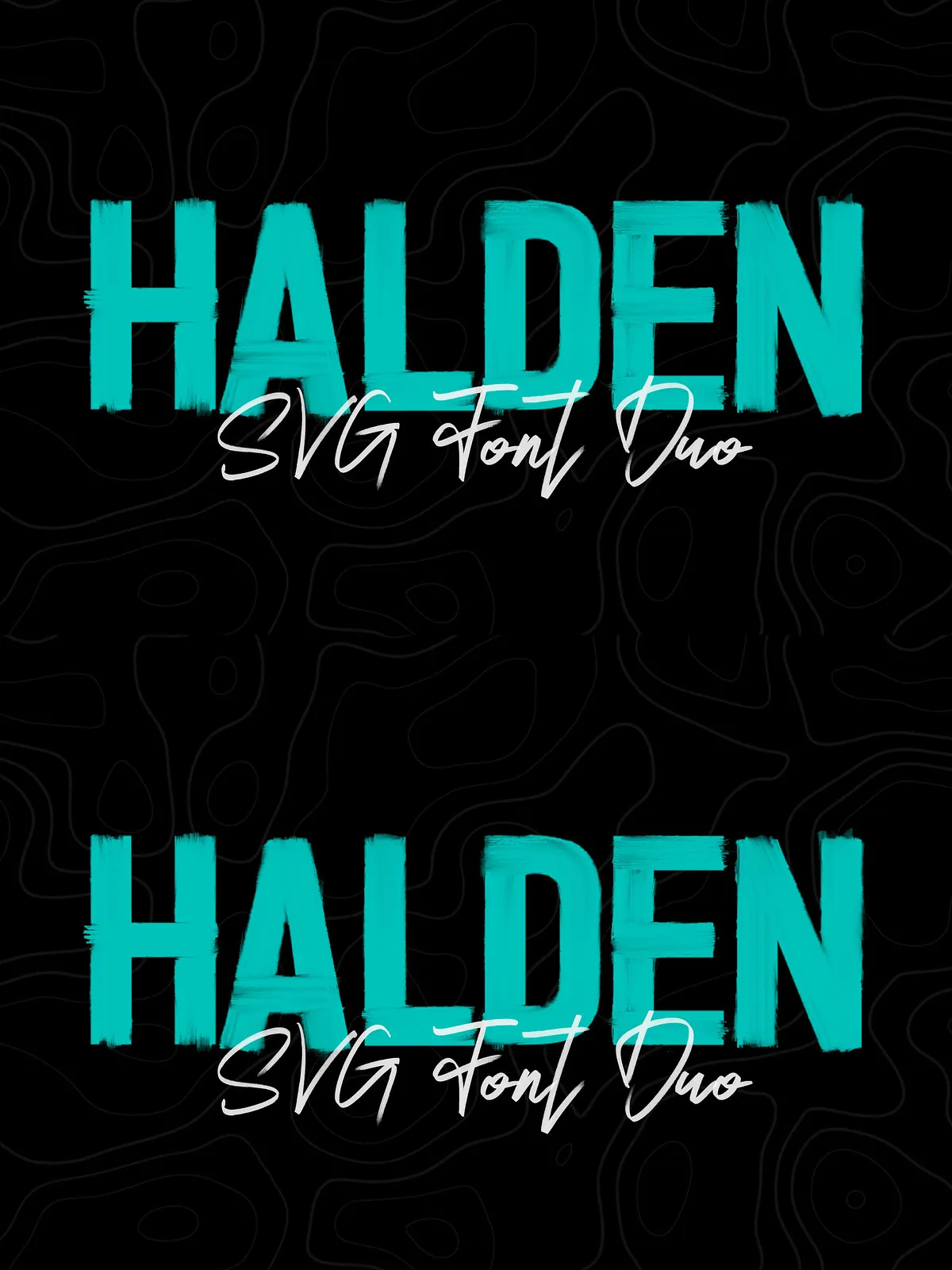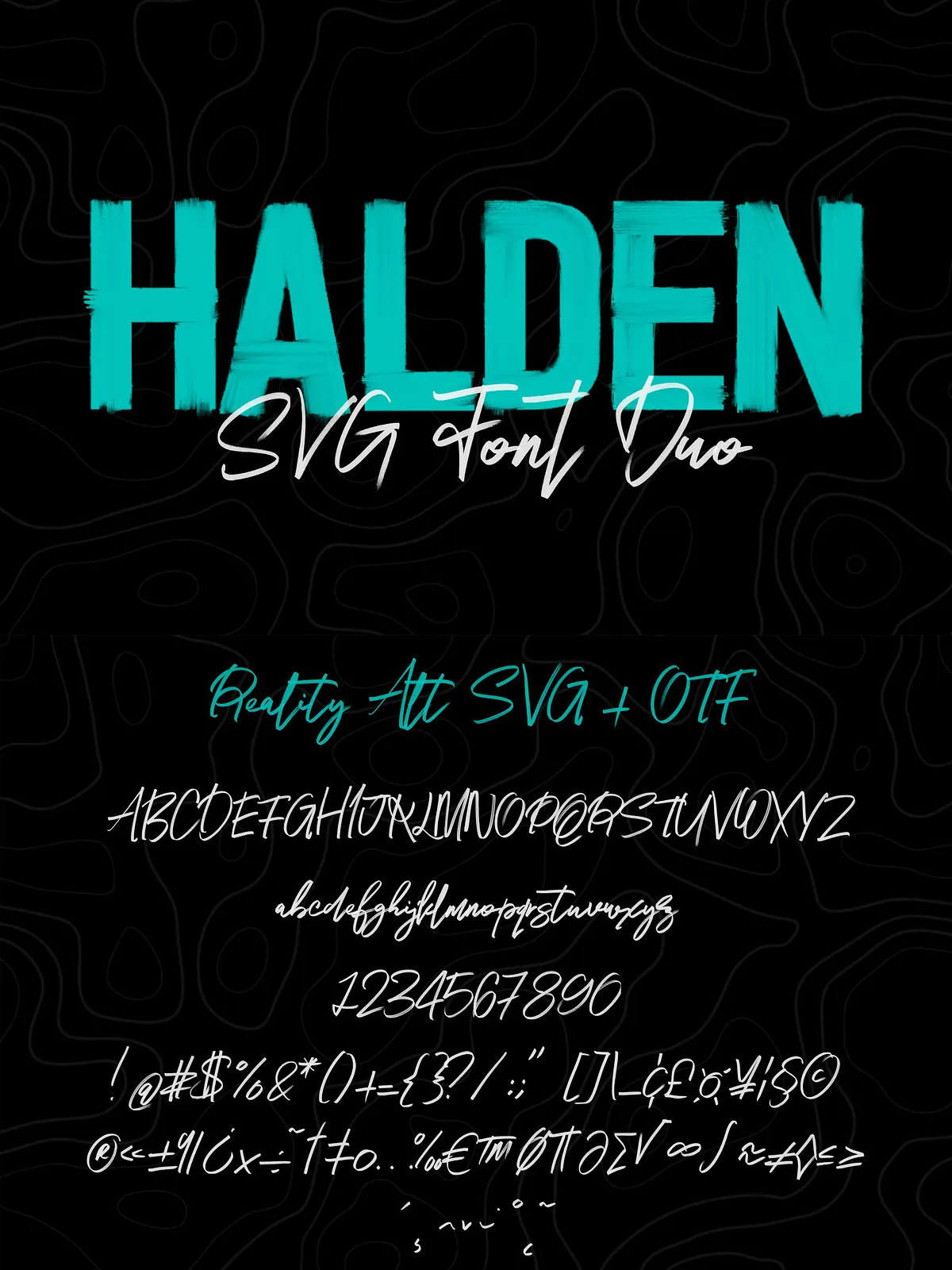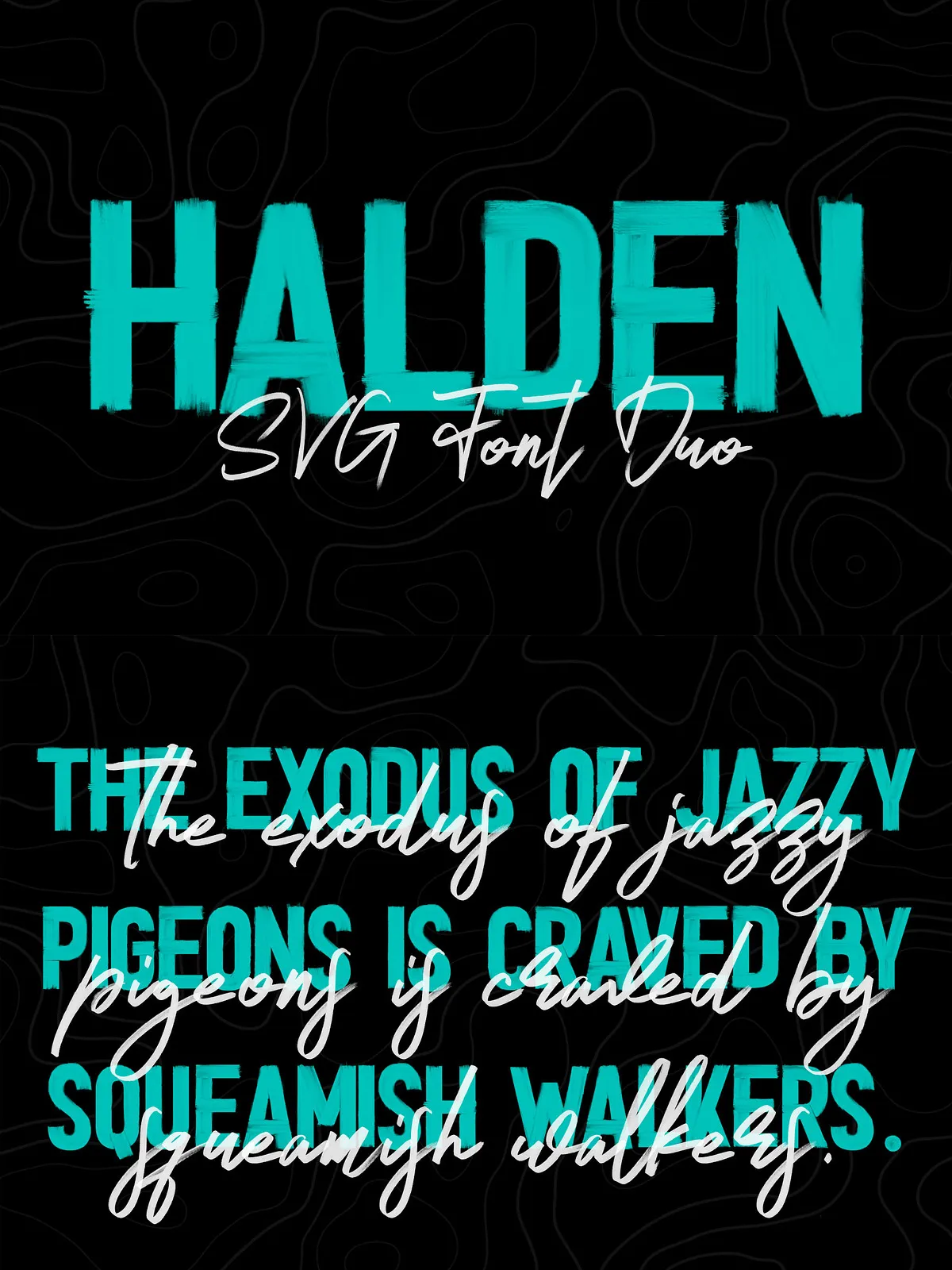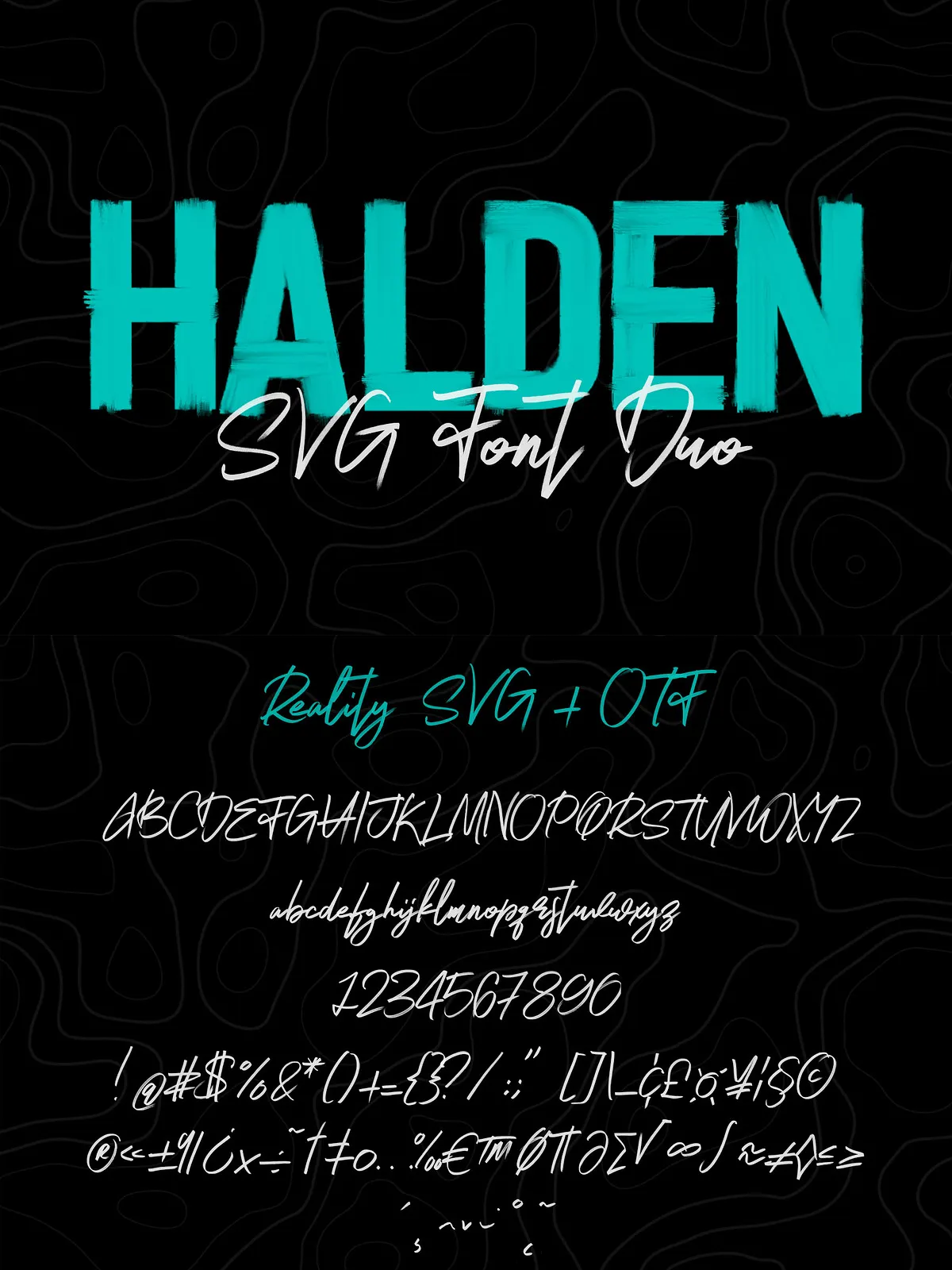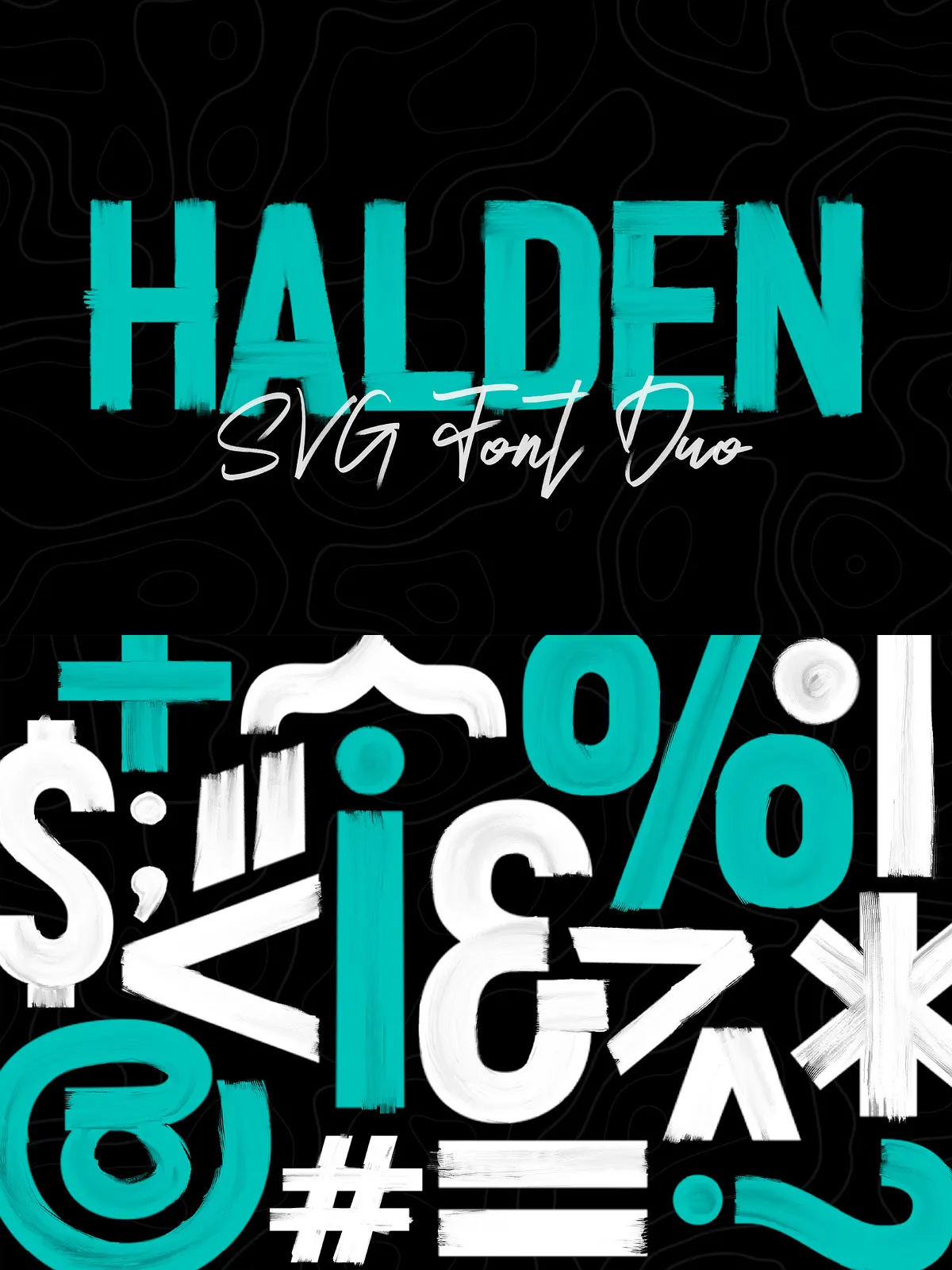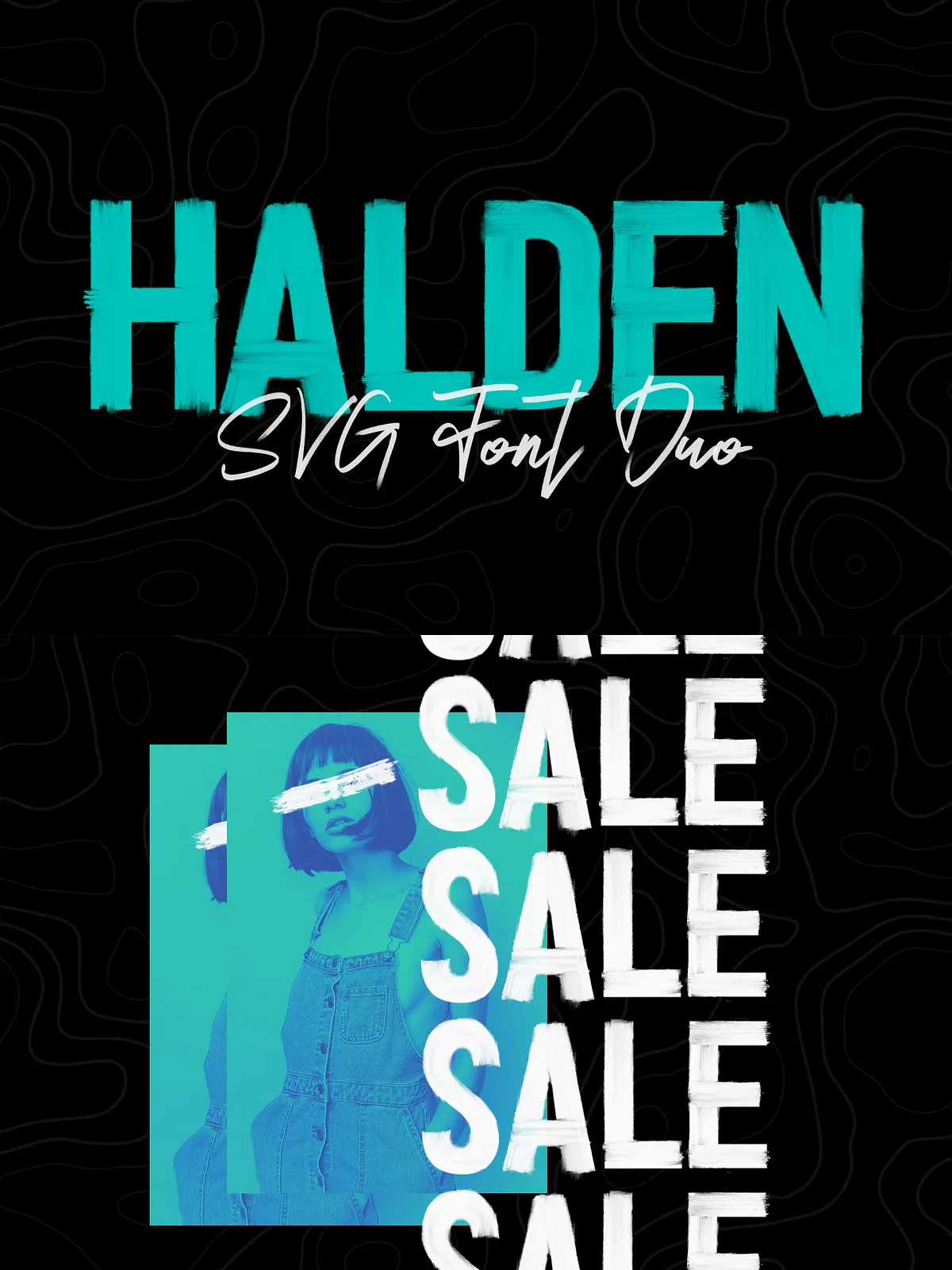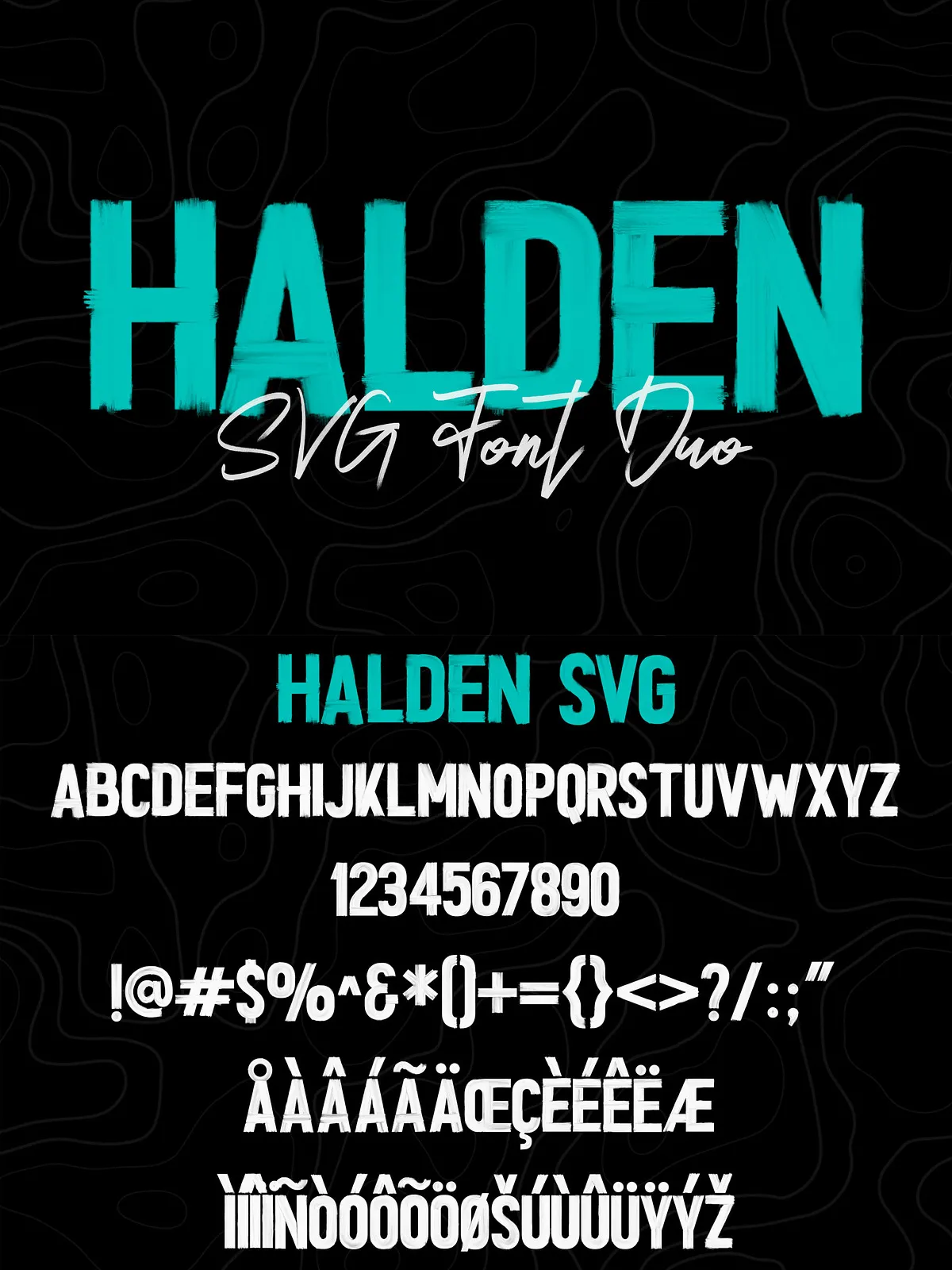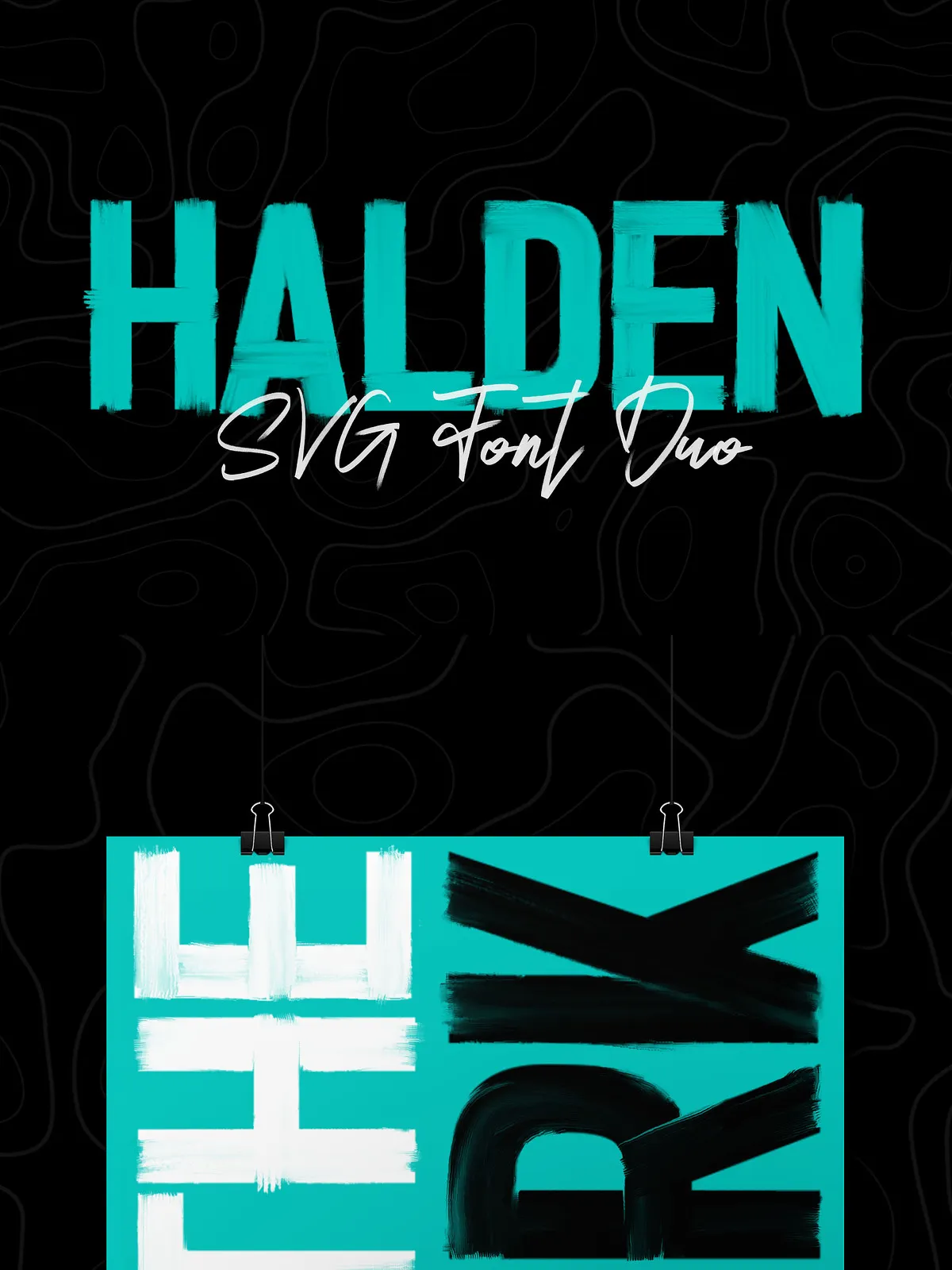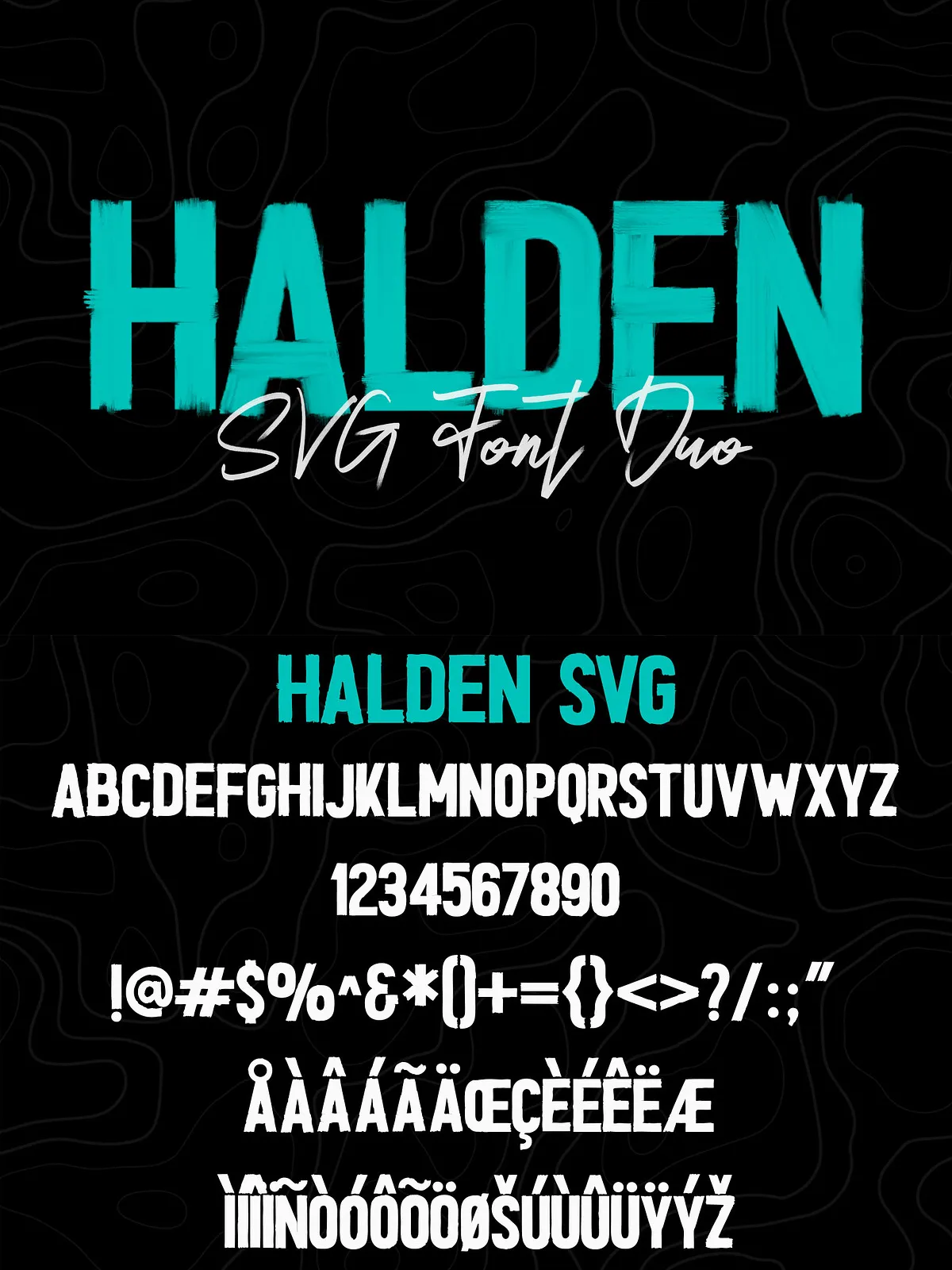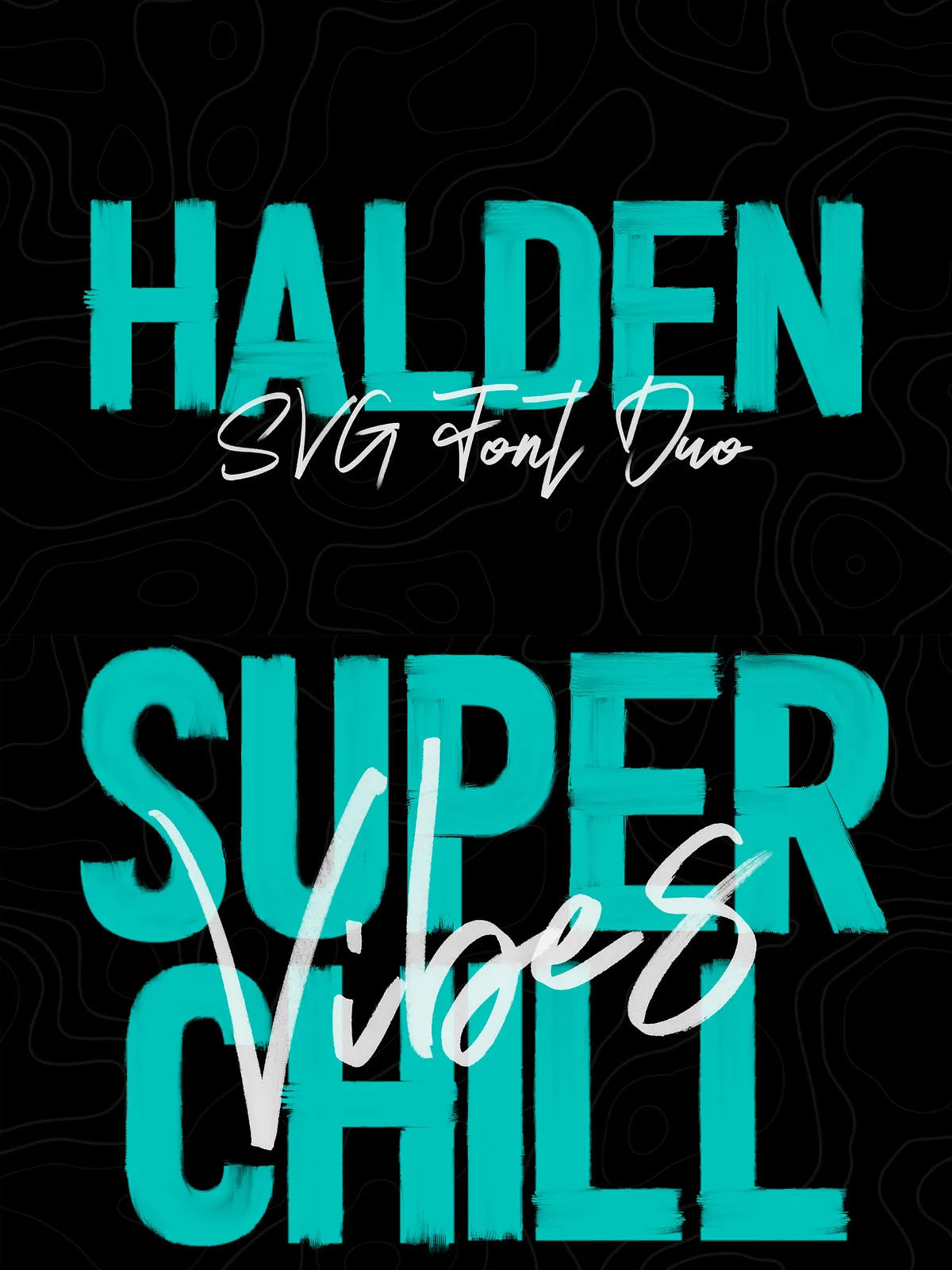
Halden – Hand Brushed SVG Font Duo
Introducing Halden, a stylish hand brushed SVG & OTF font. This sans serif font is both super unique with its signature brush strokes and also extremely usable in large and small formats. Enjoy the natural texture and transparency of the SVG font which makes an eye catching statement – perfect for use in posters, headlines, advertisements & other bold typographic pieces.
Also included is Reality SVG & OTF, a hand brushed flowing script font that is perfect for pairing or using on its own.